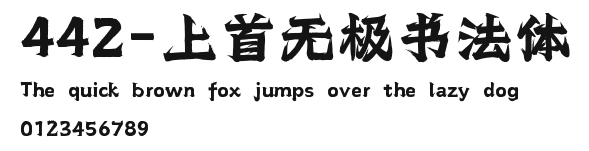
442-上首无极书法体 Preview
About 442-上首无极书法体.ttf
442-上首无极书法体.ttf is a modern, elegant sans-serif font designed for ultimate readability and visual harmony. Perfect for branding, headlines, web design, and print materials.